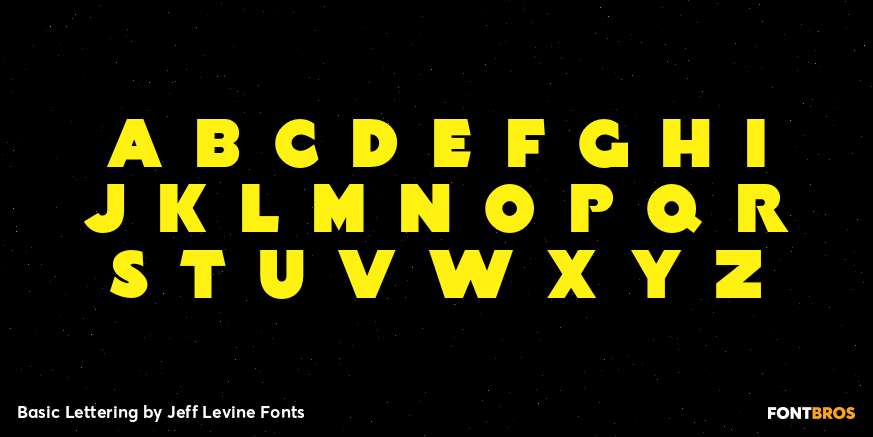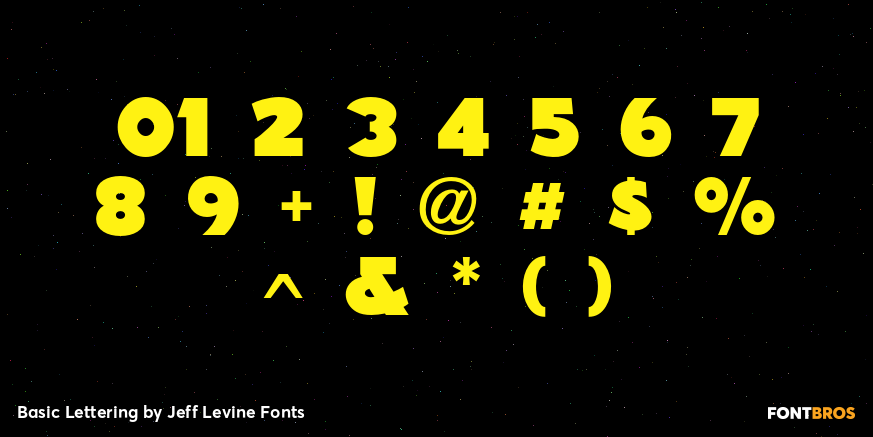
Basic Lettering
Sometimes lettering without any frills or formality gets a message across better than the use of fancier typefaces.
The simple charm of the hand-lettered phrase "Safety Comes First" found on a vintage WPA (Works Progress Administration) poster served as the model for Basic Lettering JNL.